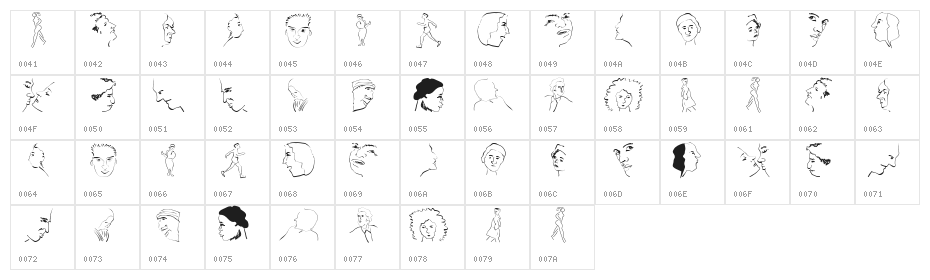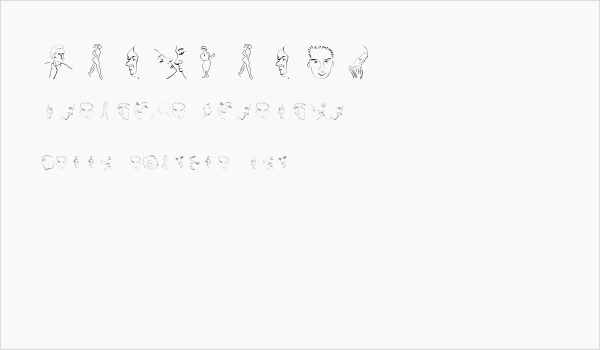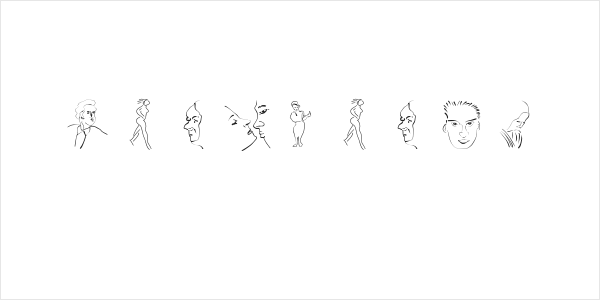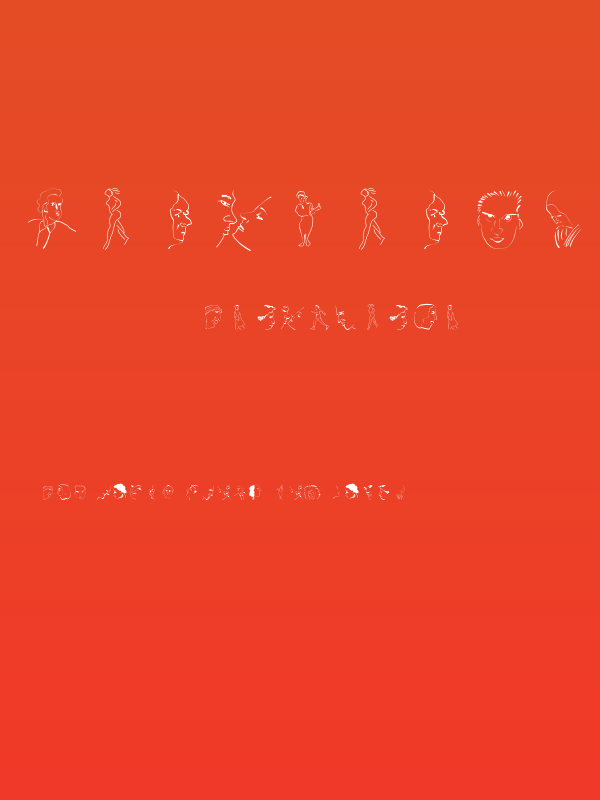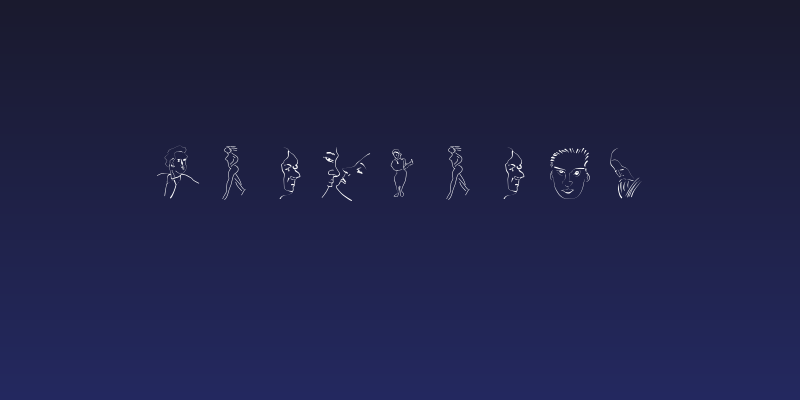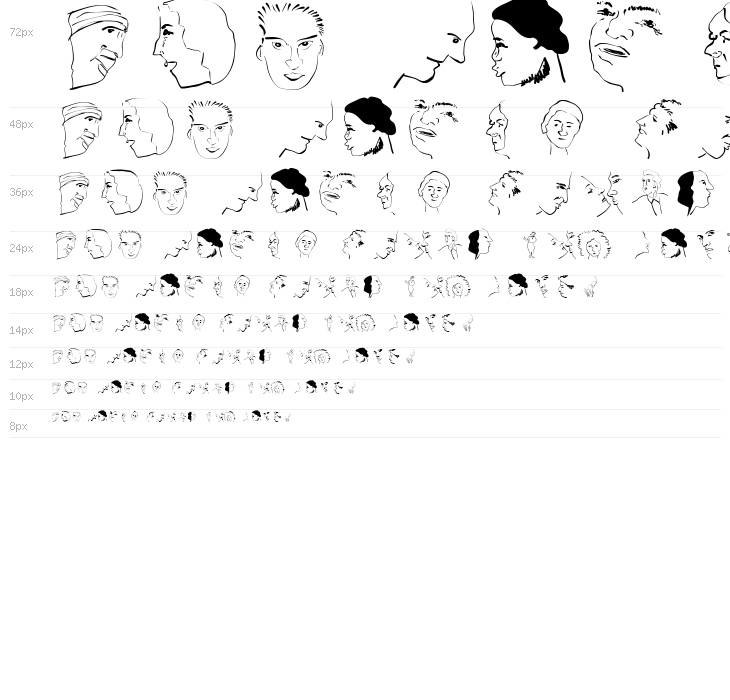
WacoFaces Font
WacoFaces Description
A decorative font composed of hand-drawn, minimalist line art illustrations of human faces and figures, each character uniquely represented by a different stylized portrait or silhouette. The lines are organic and varied, giving a whimsical and artistic feel.
| Overall Style | Artistic, Whimsical, Decorative |
| Use Case | Logos, Headlines, Posters, Artistic projects |
| Proposed Projects | Art posters, creative branding, album covers, editorial illustrations, event invitations, childrenΓ’β¬β’s books. |